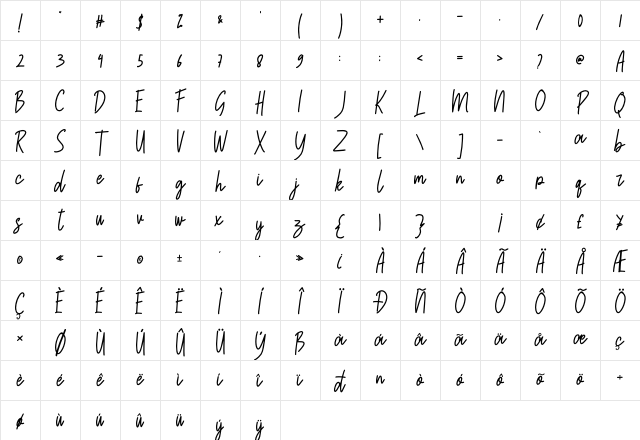
Calliston Regular Free Font
Calliston Regular
Design Context for Calliston
Calliston is a composed and adaptable typeface that performs quietly and consistently across a wide range of design contexts.